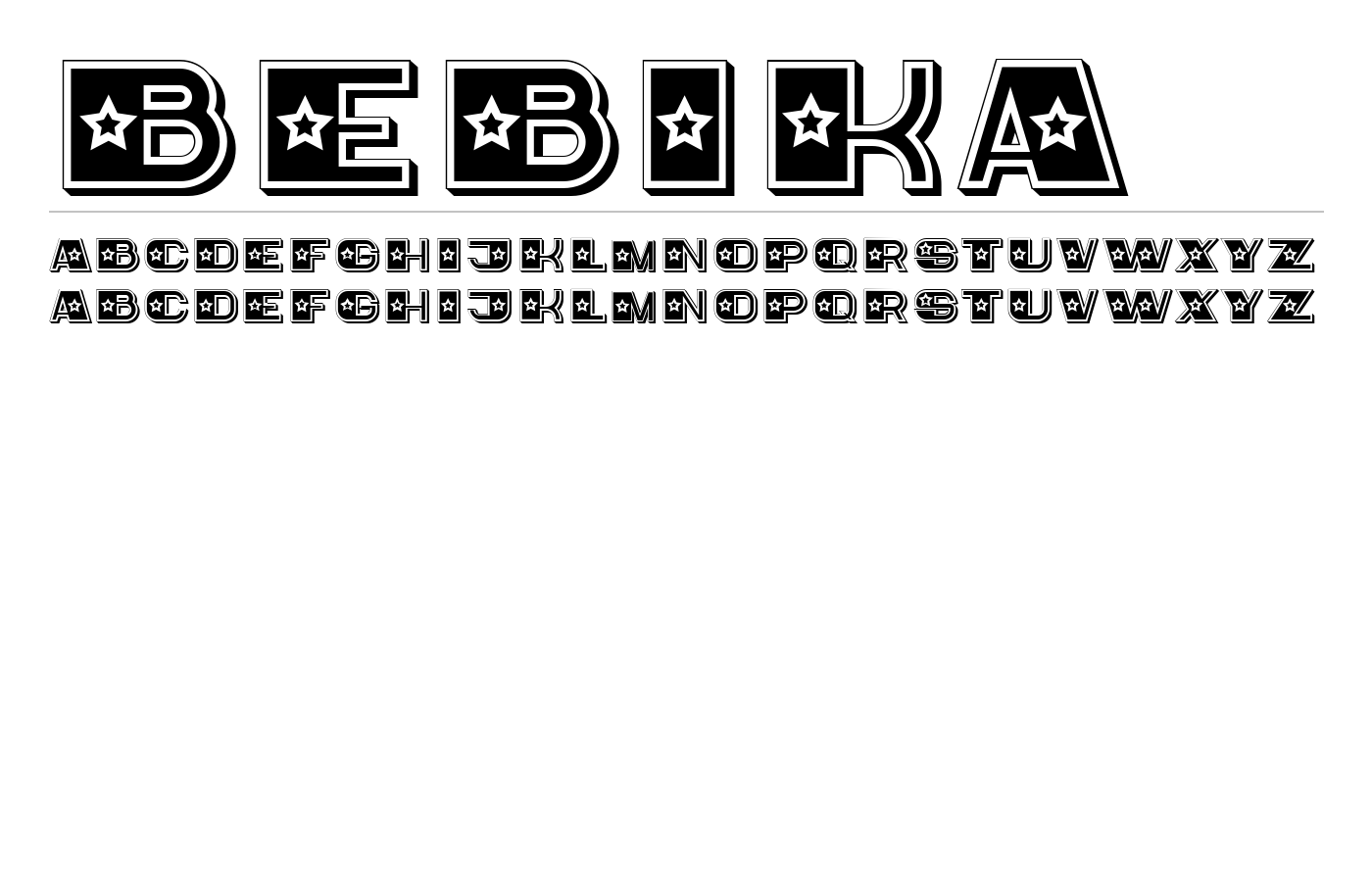
Bebika is a bold, decorative sans serif font characterized by its strong geometric shapes and playful star motifs embedded within each letterform, creating a dynamic, vintage-inspired style. Its heavy weight and tight spacing make it ideal for eye-catching headlines, logos, and posters where a fun, standout personality is desired, perfectly suited for entertainment, retro, or themed branding projects.
Bebika Font
About Bebika Font